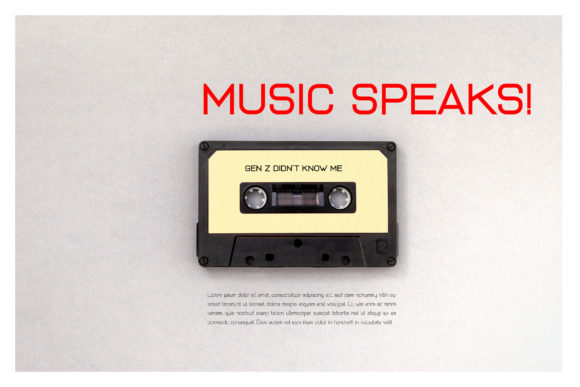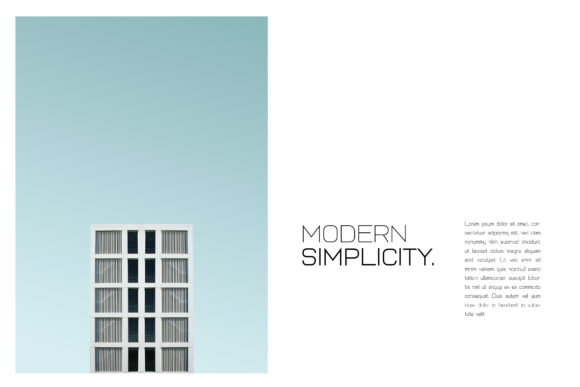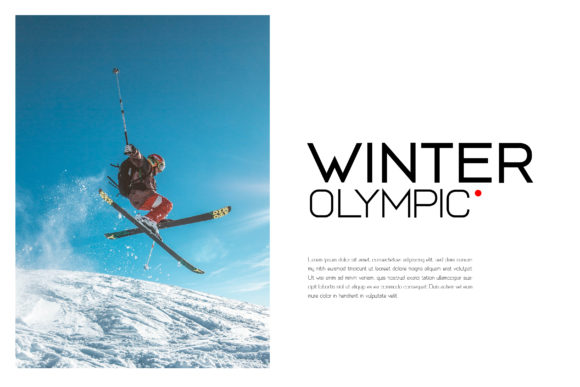
Introduction to Ndasem Font
Have you ever stared at a blank canvas, trying to spark creativity for your next design project? For many of us, finding the perfect font can be the turning point between a good design and a great one. That’s where the Ndasem Font comes in – a strong and sophisticated sans serif typeface that’s perfect for logos, magazines, flyers, posters, and much more!
As a valuable design resource, the Ndasem Font is available for free download, making it an accessible choice for designers of all levels. Its modern style and high-quality design make it an excellent addition to any creative project, whether you’re working on a personal or professional project. With a transparent background, this font can be easily layered and manipulated to fit your design needs.
Key Features of Ndasem Font
- Ndasem Font is a high-quality design resource perfect for creative projects that require a unique touch.
- The font comes in a transparent background, allowing for seamless integration with any design.
- Ndasem Font boasts a resolution of 300 DPI, guaranteeing crisp and clear text rendering.
- This font family includes a range of styles and weights, providing designers with the flexibility to create diverse and engaging visual content.
- Ndasem Font is ideal for use in graphic design, digital art, and other creative projects where a distinctive and high-quality font is essential.
Honest Review: Ndasem Font
I recently had the chance to try out the Ndasem Font for my latest creative project, and I must say it’s been a game-changer. This free download has been a fantastic design resource, offering a unique and stylish touch that’s sure to elevate any design.
One of the standout features of the Ndasem Font is its high quality. The crisp, clean lines and precise typography make it perfect for professional designs, from business cards to brochures. The transparent background also makes it easy to layer over images or other design elements, giving you a high degree of creative control.
- High-quality typography
- Transparent background for easy layering
- Perfect for creative projects requiring a unique touch
- No bold or italic font variations available
Overall, I’m thoroughly impressed with the Ndasem Font. It’s a fantastic design resource that’s perfect for creative projects, and its high quality is unmatched. While there are some limitations to its use, I highly recommend it for any designer looking to add a touch of sophistication to their designs.
For optimal results, use the Ndasem Font with a transparent background to create a clean and minimalist look. Experiment with different font sizes, colors, and alignments to add visual interest to your design.
Ndasem Font is ideal for various creative projects, including logos, graphics, presentations, and documents. Its high-quality design makes it perfect for professional and personal use cases.